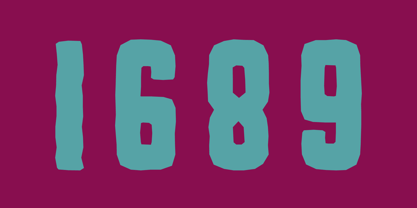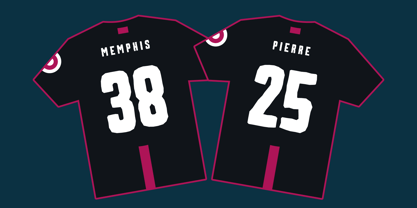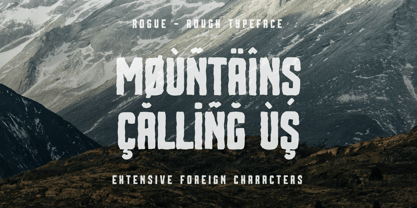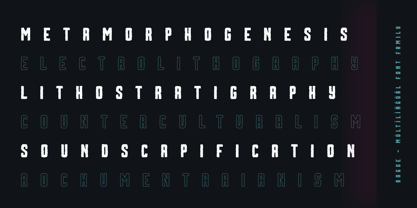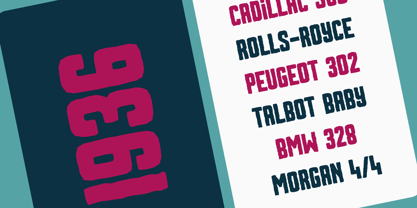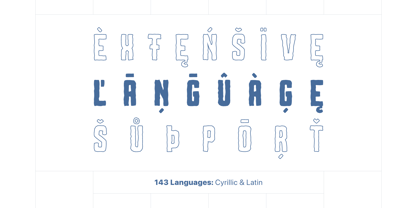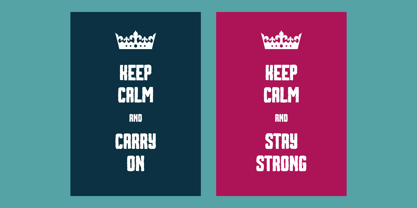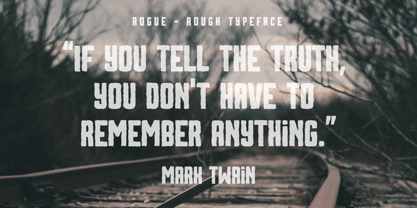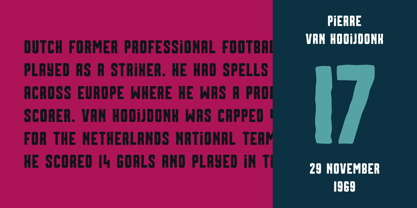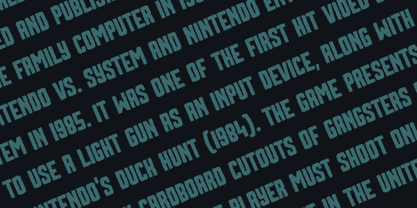
Rogue
by AlperCakici
The Rogue Font Family was designed by Alper Çakıcı and published by AlperCakici. Rogue contains 70 styles and family package options. More about this family
Rogue is a raw, expressive handwritten display typeface that captures the imperfect beauty of authentic mark-making. With its rough, organic feel, it features natural stroke variation, textured edges, and a spontaneous rhythm, giving every word a bold, human presence. Supporting both Latin and Cyrillic scripts, Rogue is versatile for global use while maintaining its gritty personality. This extensive family includes a massive set of 70 styles, exploring a wide spectrum of moods—from dry brush and chalk textures to grainy, edgy, worn, and shadowed variations. The family also features a full Rounded series, providing softer alternatives while preserving the hand-drawn character. Whether you're designing posters, album covers, branding, packaging, editorial headlines, or social media graphics, Rogue adapts effortlessly to your needs. Its layered styles—such as Outline and Shadow—enable dynamic typographic compositions, while Italics add motion and attitude. Rogue is ideal for bold, textured, and expressive design, making it a perfect choice for creative projects that demand a unique touch.
Designers: Alper Çakıcı
Foundry: AlperCakici